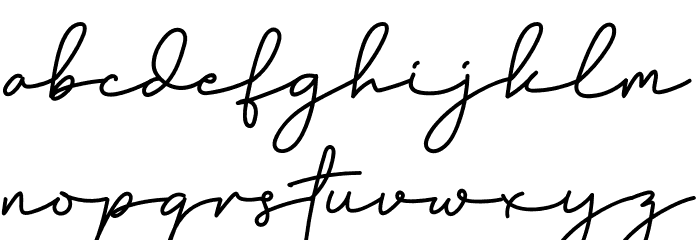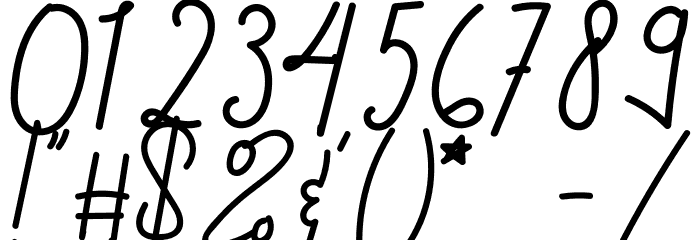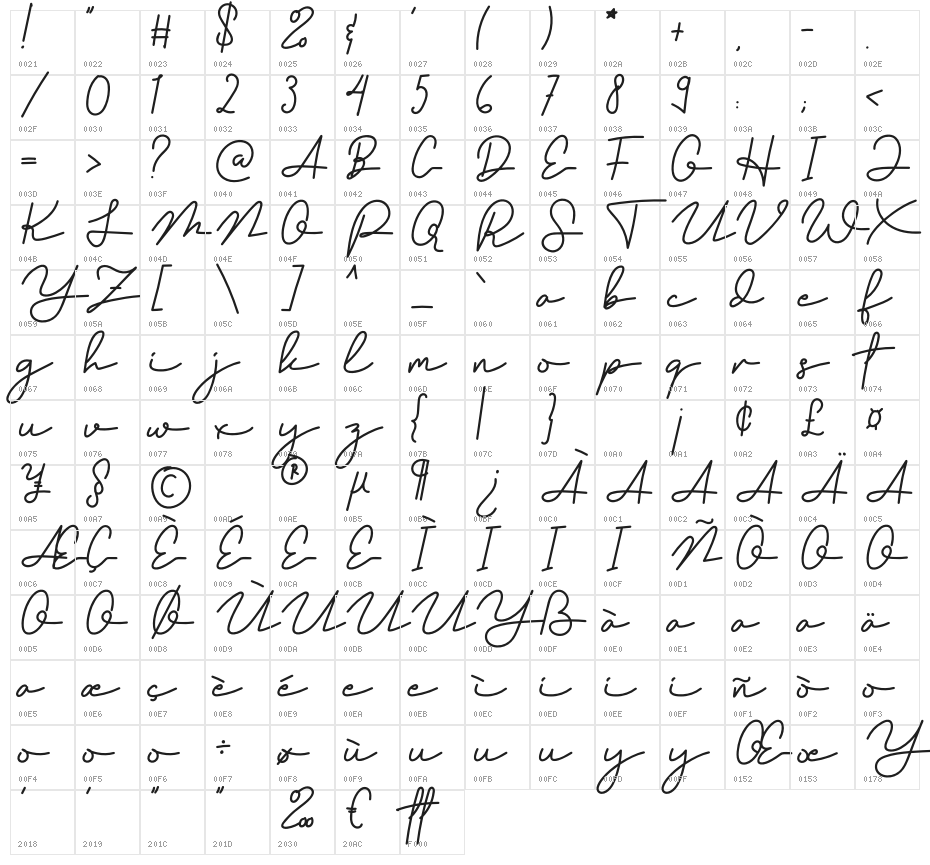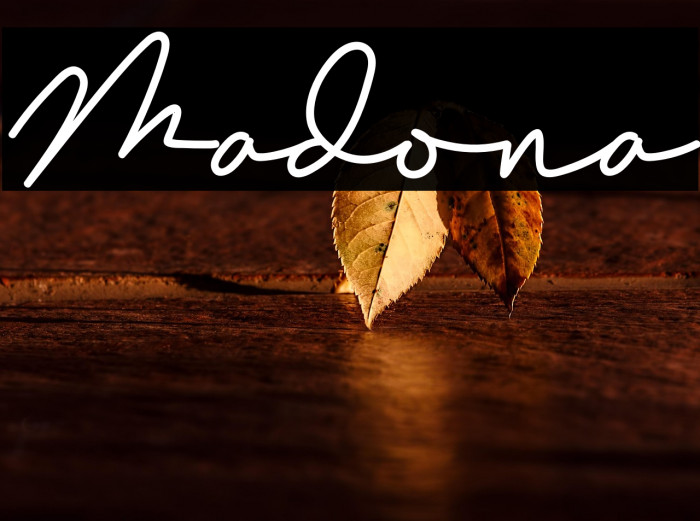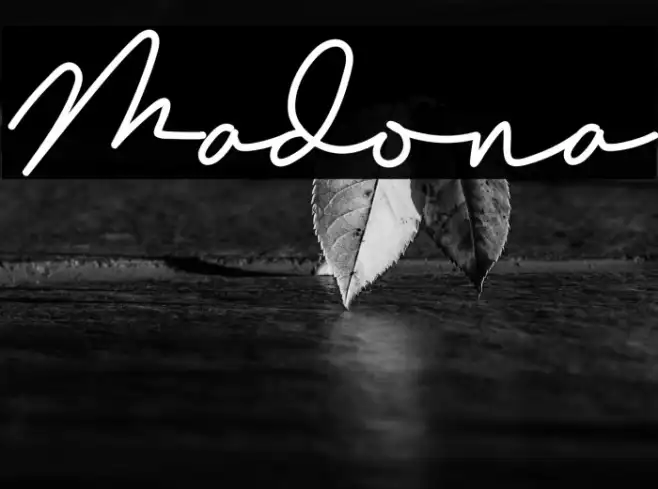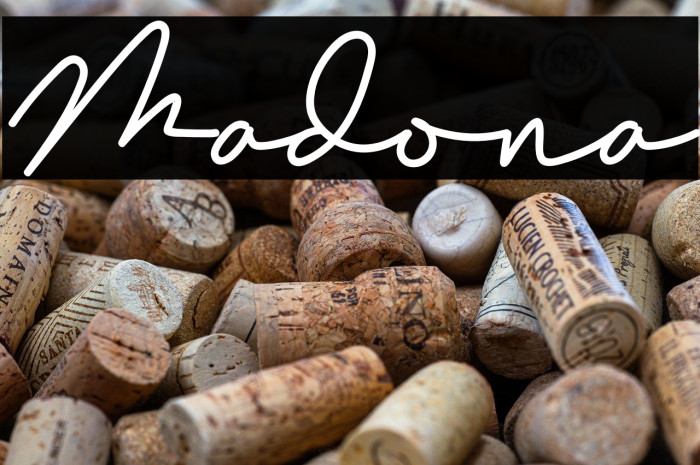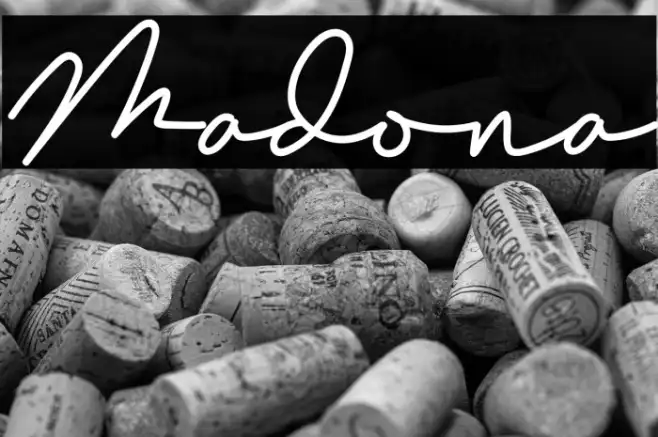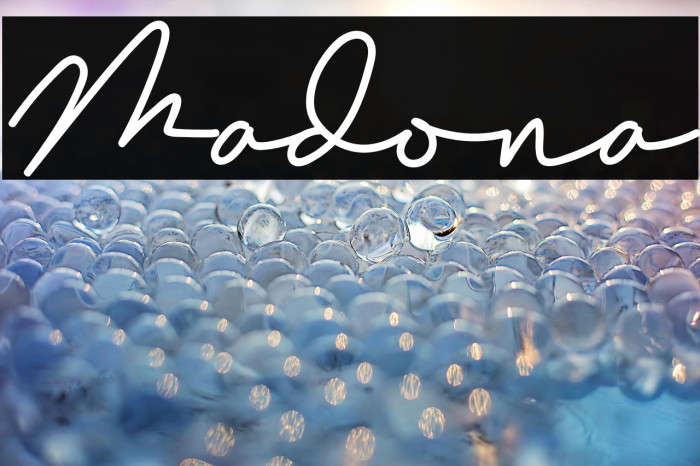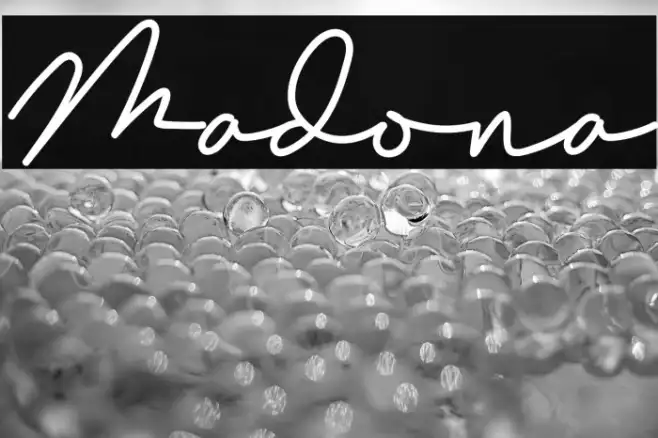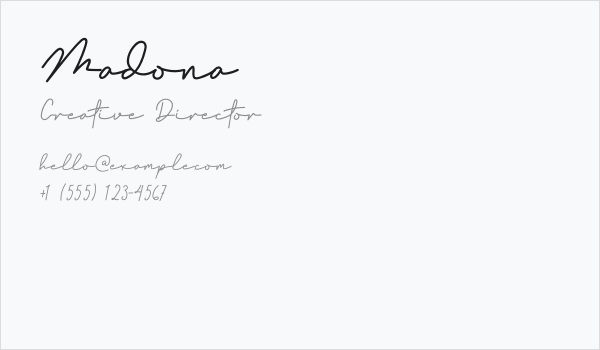
Madona Font
This font features a flowing, cursive style that mimics elegant handwriting. The uppercase letters are slightly more structured, maintaining a consistent height, while the lowercase letters exhibit a more fluid and connected appearance. The numerals are tall and slender, complementing the overall script style. Special characters are integrated seamlessly, maintaining the handwritten aesthetic. This font exudes a sense of sophistication and personal touch, making it ideal for designs that require a human element.
A cursive, handwritten-style font with elegant, flowing characters.
- Proposed Projects: Ideal for wedding invitations, personal branding, greeting cards, and any project that requires a touch of elegance and personalization.
- Overall Style: Elegant, Handwritten
- Use Case: Logos, Invitations, Personal Branding